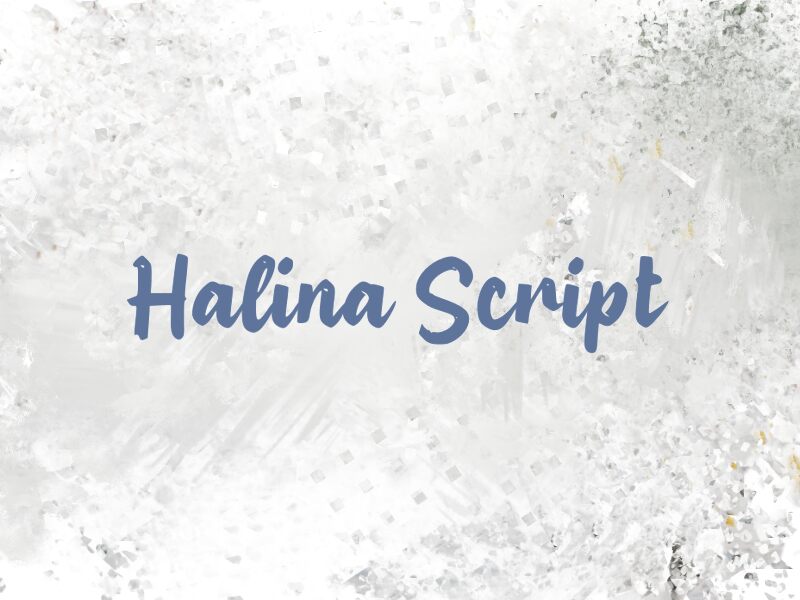
Halina Script
Halina Script font designed by wep is a brush-script typeface with elegantly flowing curves and intoxicating full-circle character shapes. It combines casual elegance and modern vintage to perfection truly bringing out a unique, yet dynamic style for branding projects. Its smooth flow and approachable personality make it attractive, engaging, legible, and clear on every surface.
A free handwritten font for typography projects such as logo designs (artistic signatures), quotes, ad banners, business cards; branding elements like packaging designs and product labeling (coffee); social media covers; professionally designed webpage layout headers; beauty magazines or journals! Also great in typographic posters and even personalized greeting cards.